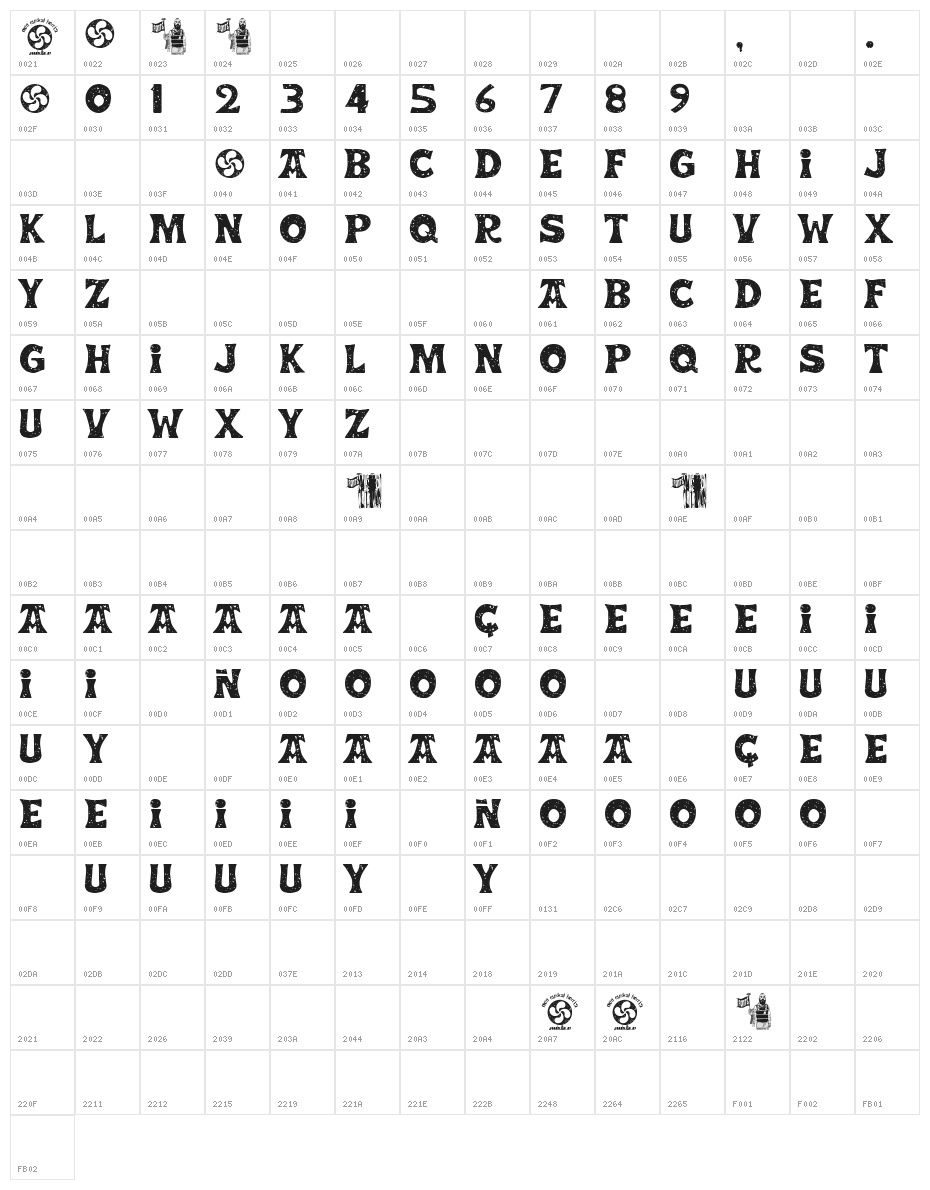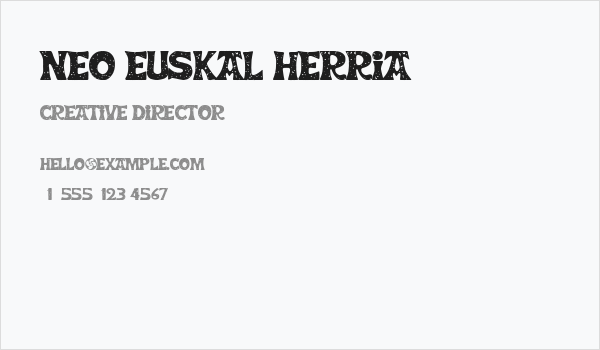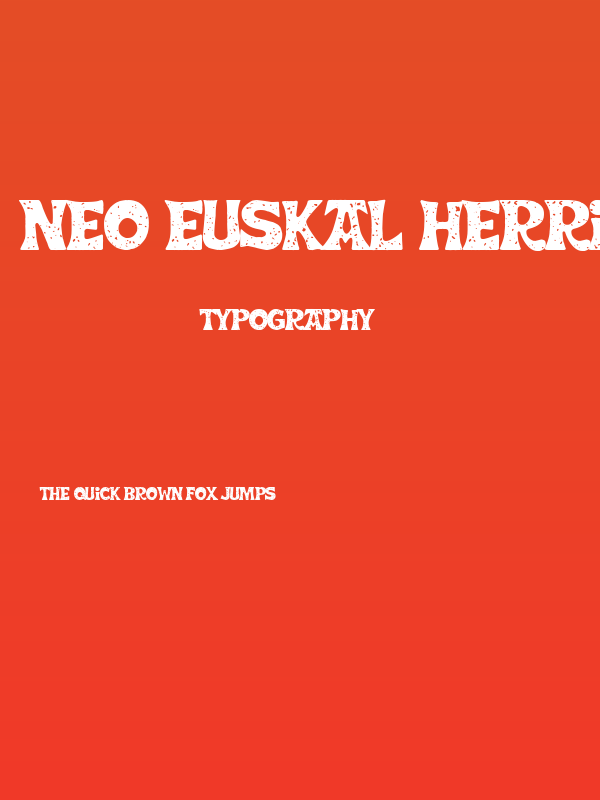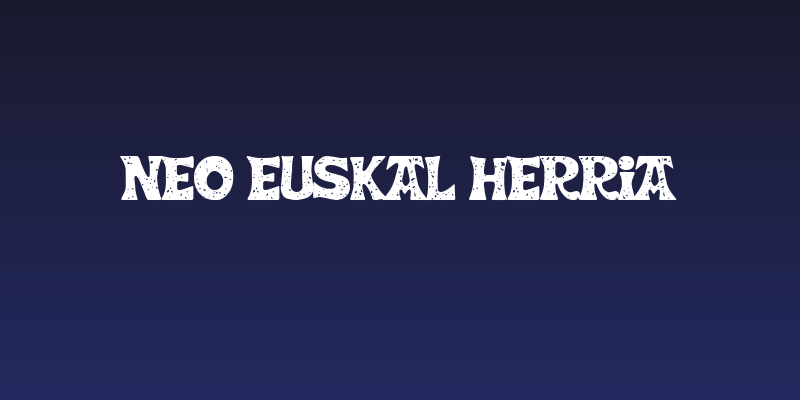
Neo Euskal Herria Font
Neo Euskal Herria Description
This font features a bold, decorative style with a unique, textured appearance. The characters are designed with a speckled pattern that gives them a rustic and handcrafted feel. The uppercase letters are robust and slightly condensed, while the lowercase letters maintain a consistent style. The numerals are bold and follow the same textured design, ensuring uniformity across all characters. This font includes a variety of special characters, each maintaining the distinctive speckled texture. The overall design is eye-catching and suitable for projects that require a strong visual impact.